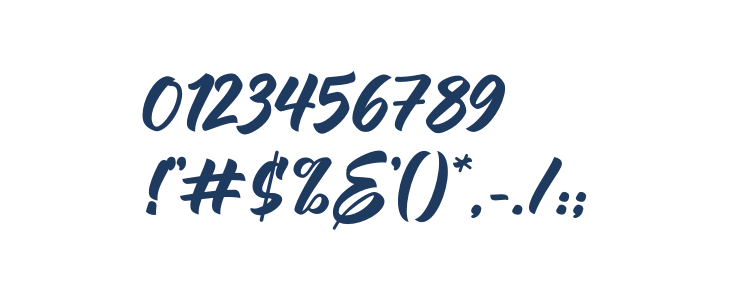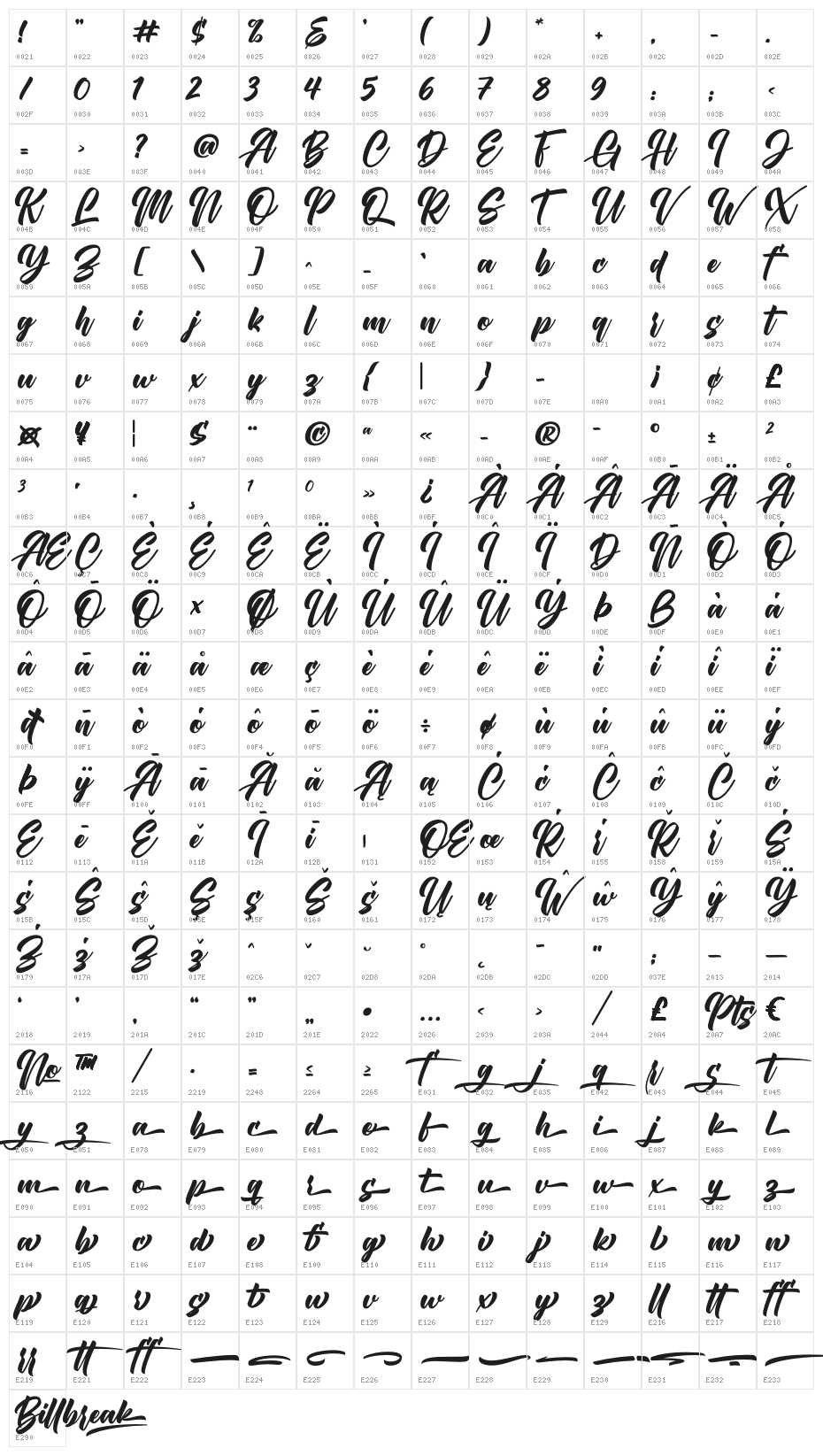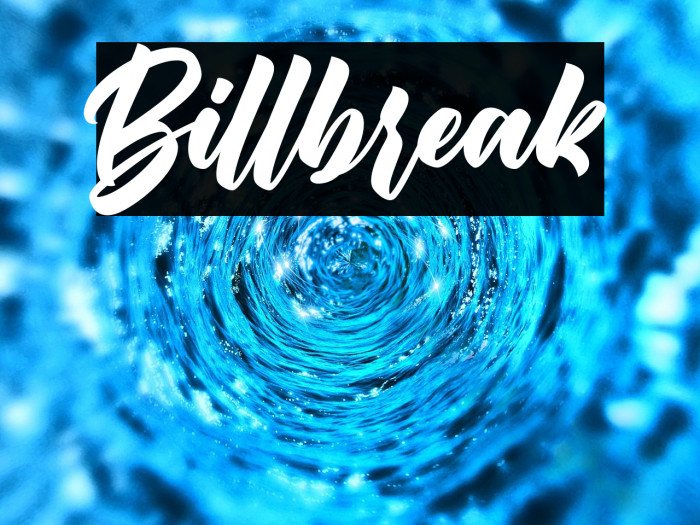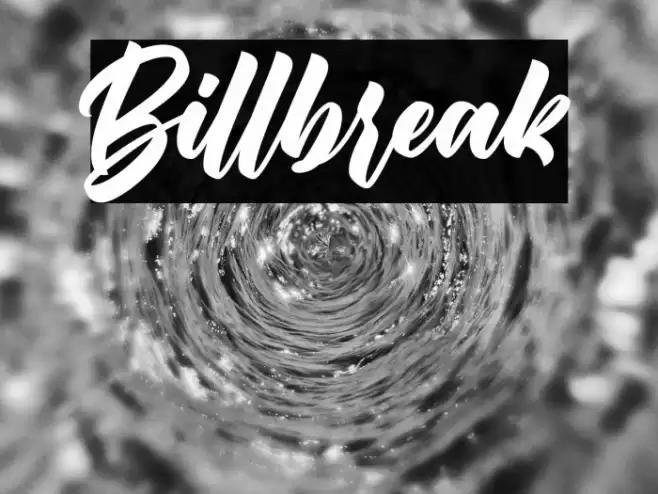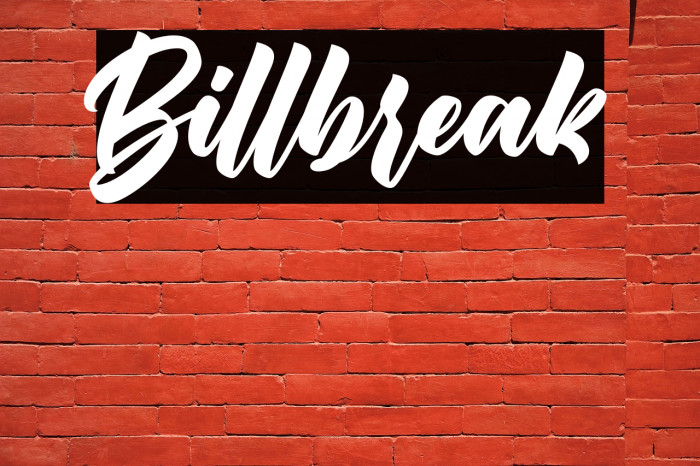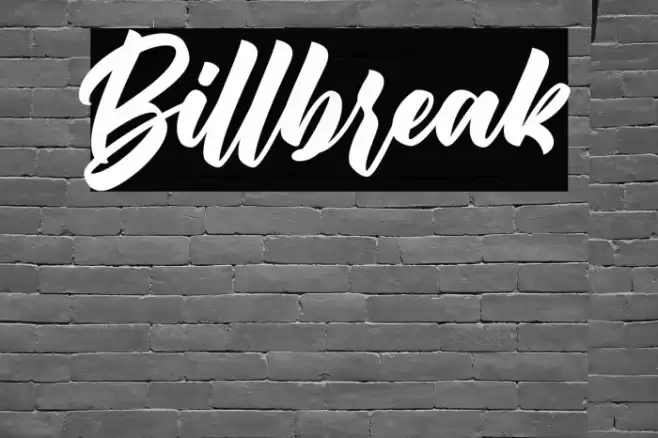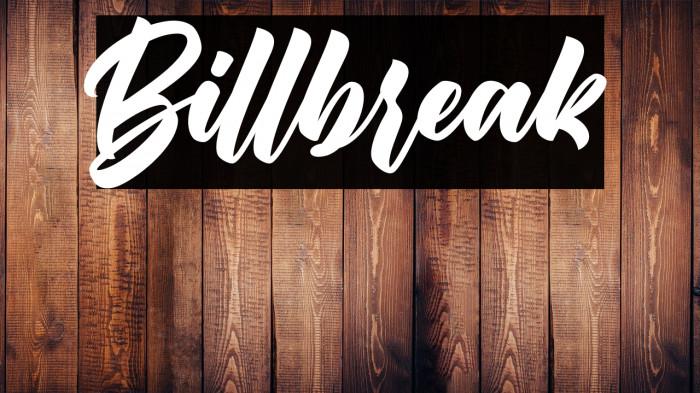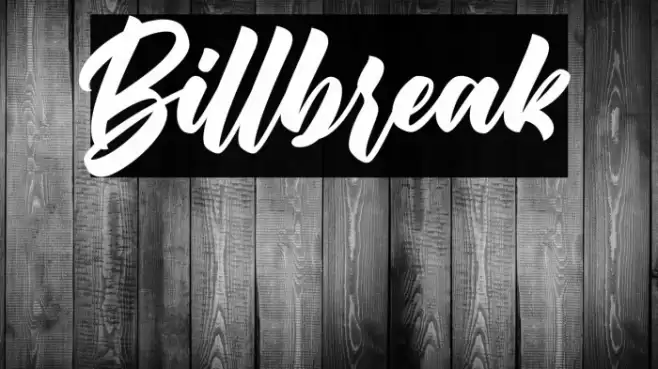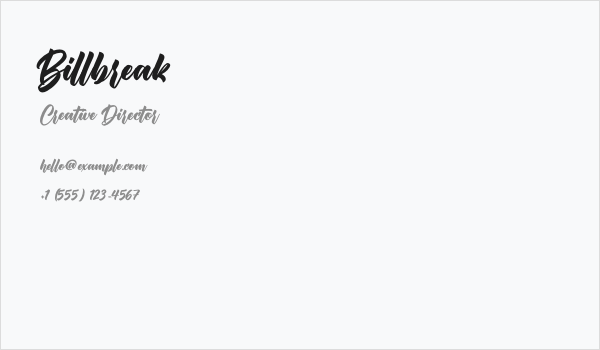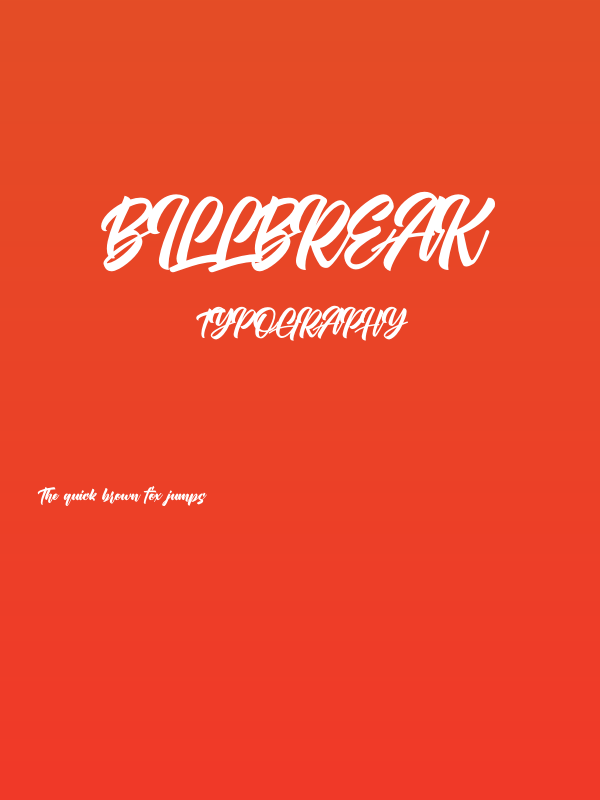
Billbreak Font
Billbreak Description
This font features a bold, expressive script style with a dynamic flow and a sense of movement. The characters are interconnected, creating a cohesive and fluid appearance. The strokes are thick and consistent, providing a strong visual impact. The uppercase letters are slightly larger and more prominent, while the lowercase letters maintain a balanced and harmonious look. The numbers and special characters follow the same stylistic approach, ensuring uniformity across all elements. This font exudes a modern and energetic vibe, making it suitable for various creative applications.